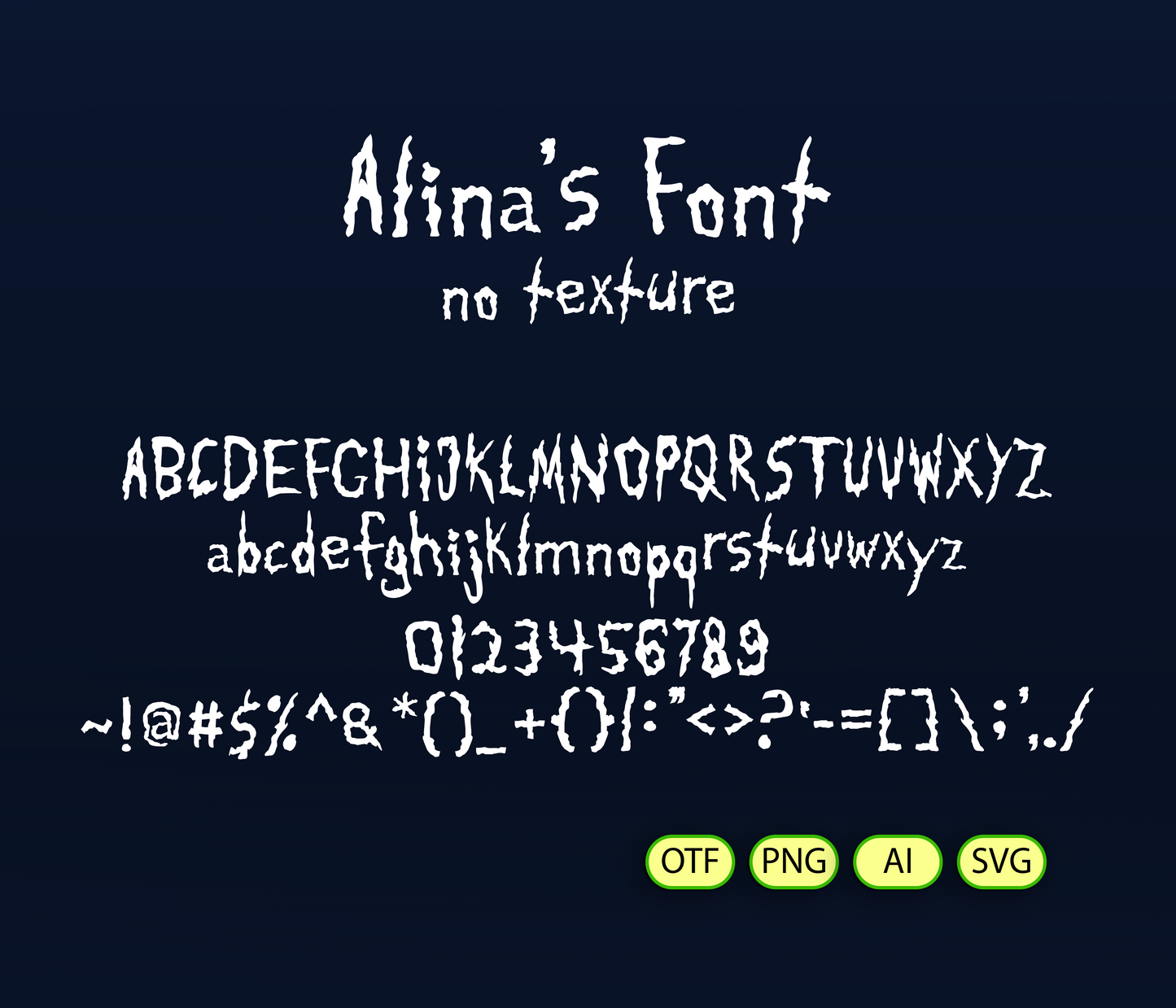
Interdimensional Science Font
Interdimensional Science Comedy Chaos Style
Portal into the wild universe of scientific mayhem and multiverse adventures with our Interdimensional Science Comedy font, embodying the essence of chaotic experiments and dimension-hopping escapades. Perfect for sci-fi comedy creators, experimental science designers, multiverse storytellers, and creative professionals, this font delivers the brilliantly chaotic yet inventive, scientifically absurd atmosphere of interdimensional laboratory tales to your projects. Craft mind-bending invitations, experimental science merchandise, or digital content with the frantically genius, dimensionally unstable energy of mad science adventure stories.
Our Interdimensional Science Comedy font features erratic, laboratory-inspired letterforms and chaotically scientific characters reflecting the brilliantly unhinged yet entertaining aesthetic of multiverse experiment scenarios. Ideal for:
- Sci-Fi Comedy Events: Design mind-warping invites, posters, and banners for science-themed parties, experimental experiences, and interdimensional comedy gatherings
- Mad Science Design: Perfect for book covers, experimental promotions, and laboratory-themed accessories that capture chaotic invention essence
- Digital Media: Enhance websites, blogs, and social media with unstable headers and graphics that express scientific chaos and dimensional adventure
- Entertainment Content: Add authentic character to sci-fi comedy materials, experimental science designs, and promotional materials for chaotic events
- Personal Projects: Bring experimental appeal to scrapbooking, DIY crafts, and home decor inspired by the aesthetics of interdimensional science adventures